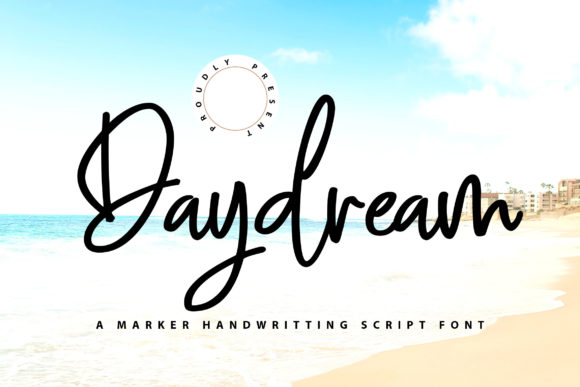
Introducing Daydream Font: The Ultimate Laid-Back Cursive Script Font
Are you tired of using the same old fonts in your designs? Do you want to add a touch of elegance and sophistication to your creations? Look no further than Daydream Font, a beautiful laid-back and cursive script font that is sure to enhance any project. In this article, we’ll take a closer look at Daydream Font, its features, and why it’s a must-have for any designer or font enthusiast.
What is Daydream Font?
Daydream Font is a stunning cursive script font that exudes a sense of relaxation and casualness. Its unique and flowing design makes it perfect for a wide range of applications, from creative projects to commercial use. Whether you’re designing a logo, creating a social media post, or working on a branding project, Daydream Font is sure to make your designs stand out.
Key Features of Daydream Font
So, what makes Daydream Font so special? Here are some of its key features:
- Laid-back and cursive design: Daydream Font has a unique and relaxed design that is perfect for creating casual and elegant designs.
- High-quality design: Daydream Font is designed with high-quality and precision, ensuring that it looks great in any size or resolution.
- Versatile: Daydream Font can be used for a wide range of applications, from creative projects to commercial use.
Why Choose Daydream Font?
With so many fonts available, why choose Daydream Font? Here are some reasons why Daydream Font is a great choice:
- Elegant and sophisticated: Daydream Font has an elegant and sophisticated design that is sure to enhance any project.
- Unique and creative: Daydream Font has a unique and creative design that will help your designs stand out.
Tips and Tricks for Using Daydream Font
Here are some tips and tricks for using Daydream Font:
- Experiment with different sizes: Experiment with different sizes to find the perfect fit for your design.
- Play with swashes: Play with swashes and glyphs to add personality to your design.
- Mix and match: Mix and match Daydream Font with other fonts to create a unique look.
- Use it for headlines and titles: Use Daydream Font for headlines and titles to add a touch of elegance.
In conclusion, Daydream Font is a beautiful and versatile cursive script font that is perfect for any designer or font enthusiast. Its unique and flowing design, PUA encoding, and high-quality design make it a great choice for a wide range of applications. Whether you’re creating a logo, social media post, or branding project, Daydream Font is sure to enhance your designs and make them stand out.
- What is Daydream Font? Daydream Font is a laid-back and cursive script font.